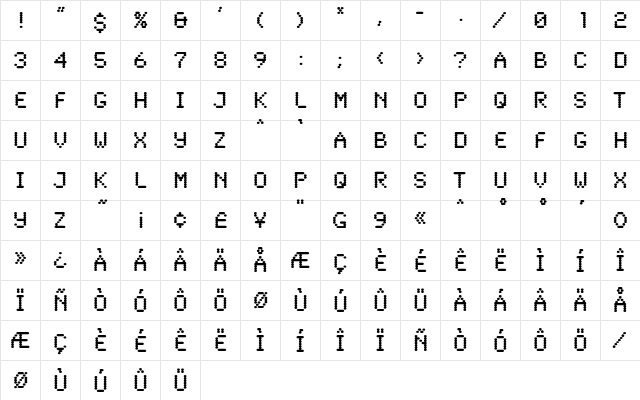
SandersDFiveOpti Regular
Design Context for SandersDFiveOpti Typeface
SandersDFiveOpti takes a measured approach to typography — its balanced proportions and neutral character make it a reliable workhorse for both digital and print work.